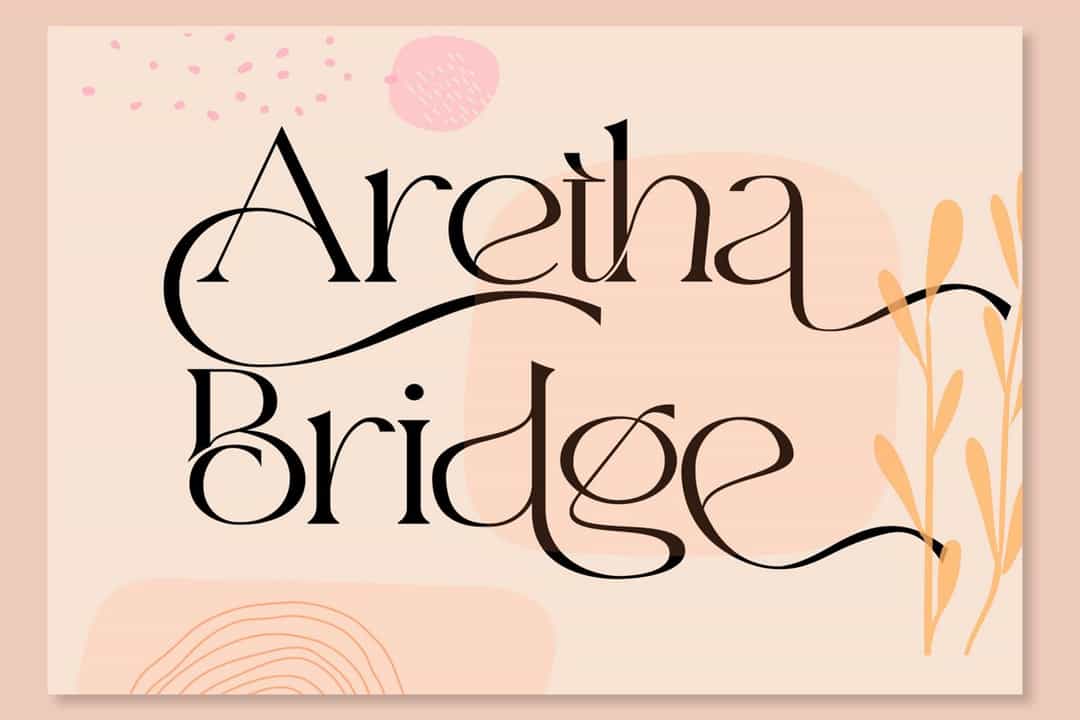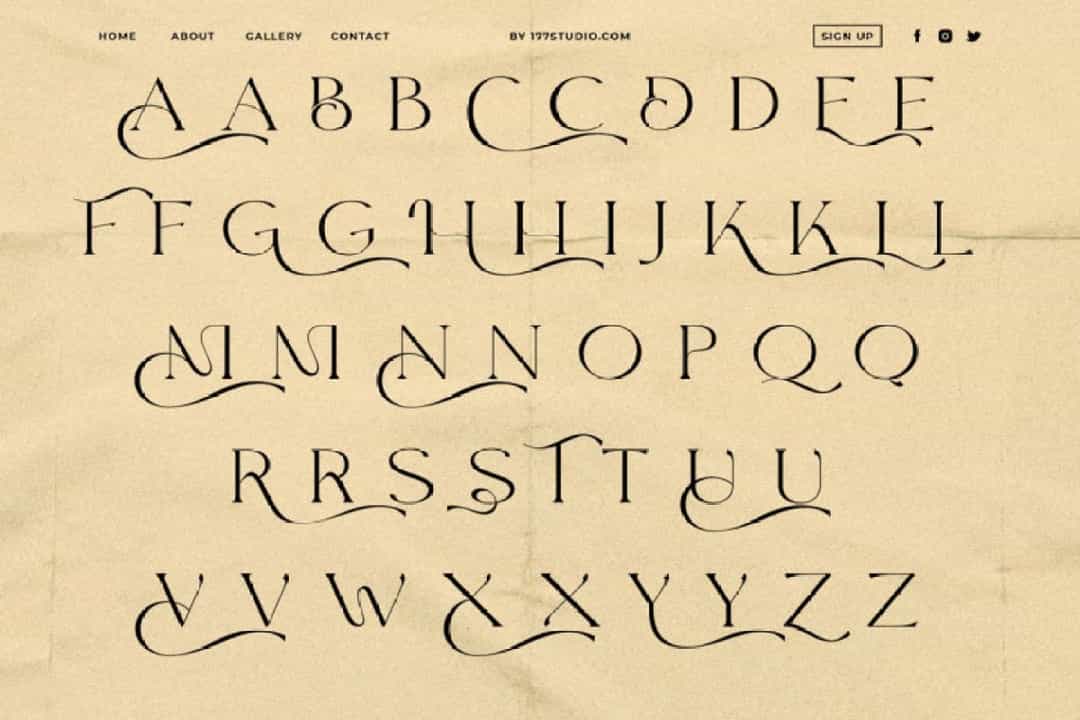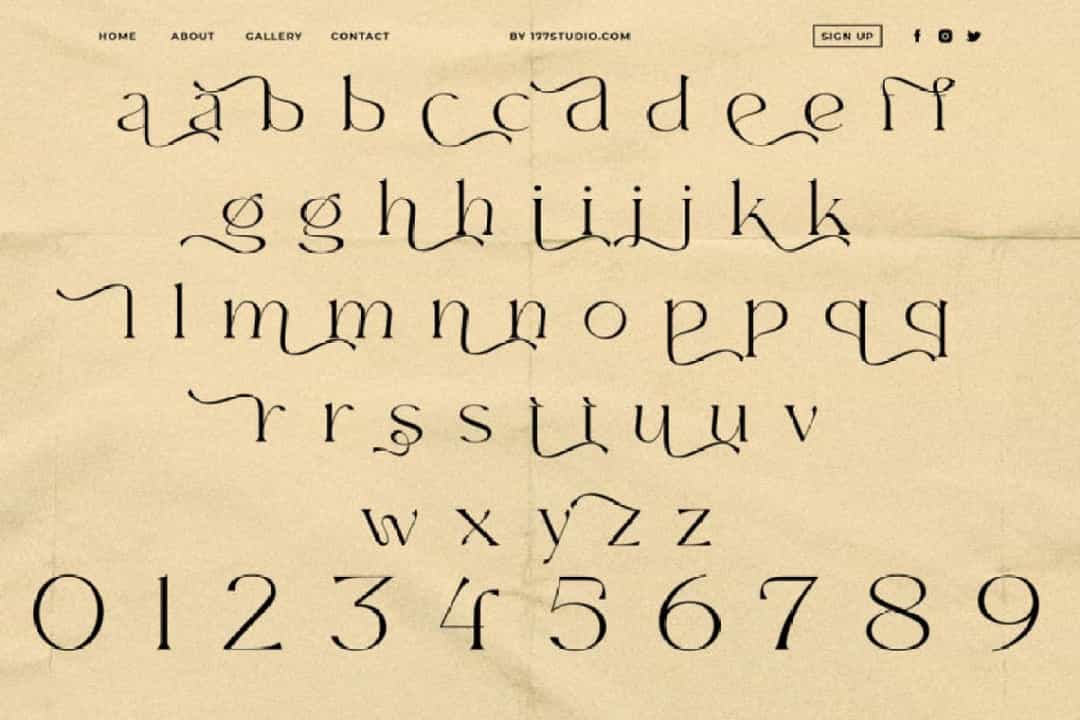
Aretha Bridge is a sophisticated font belonging to the serif font and has all the features that any user may need, from the diverse sets of ligatures to draw people’s attention and to make advertising as well as This beautiful font will get them hooked!